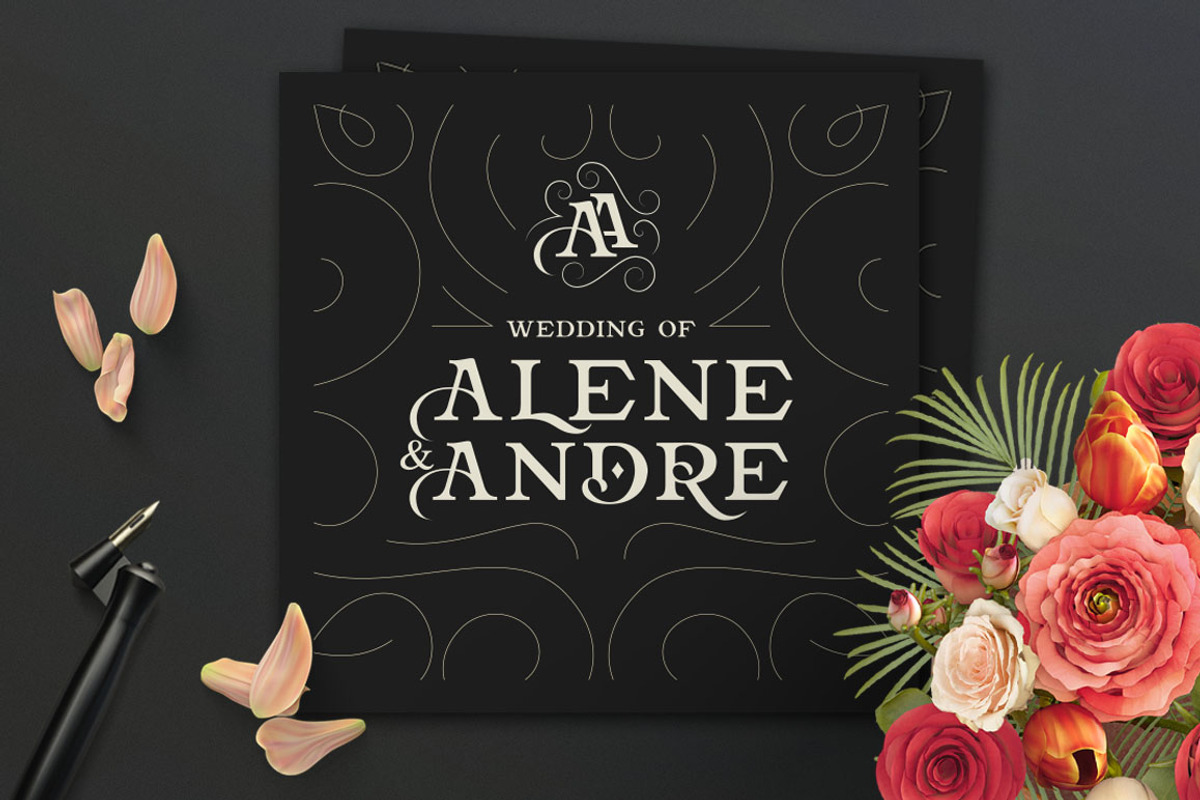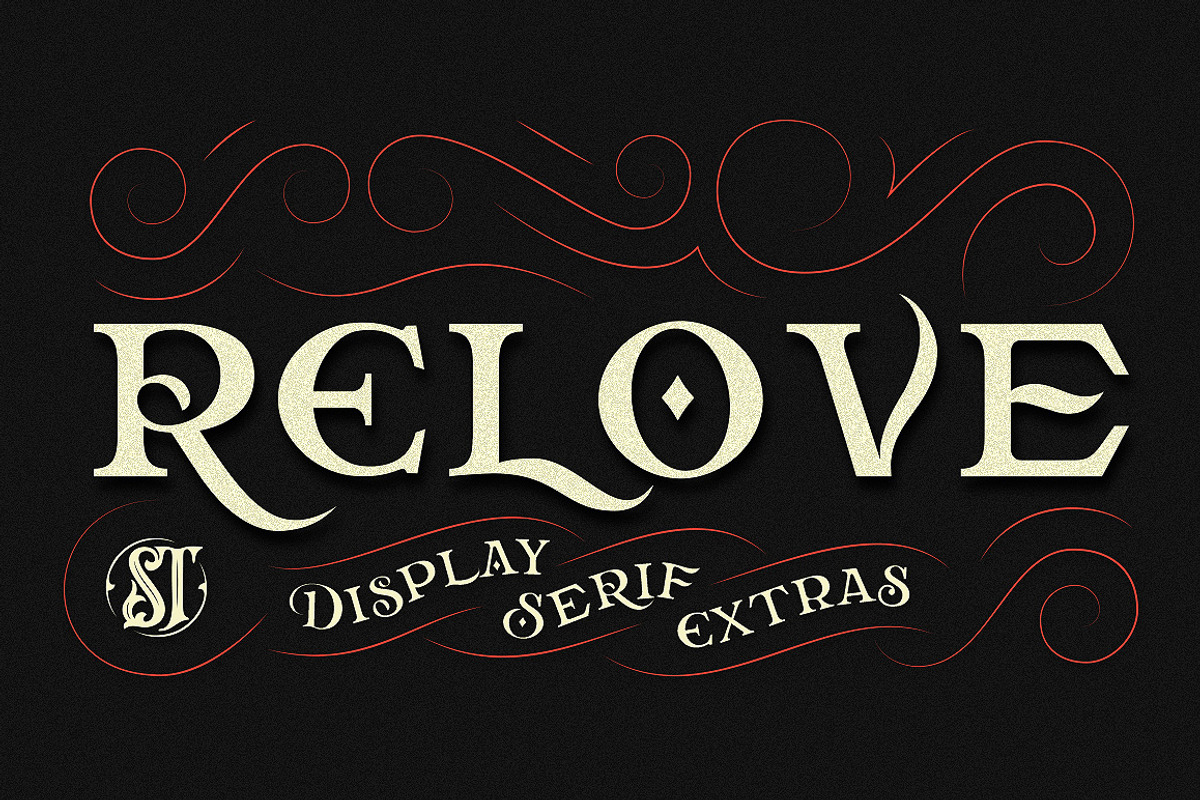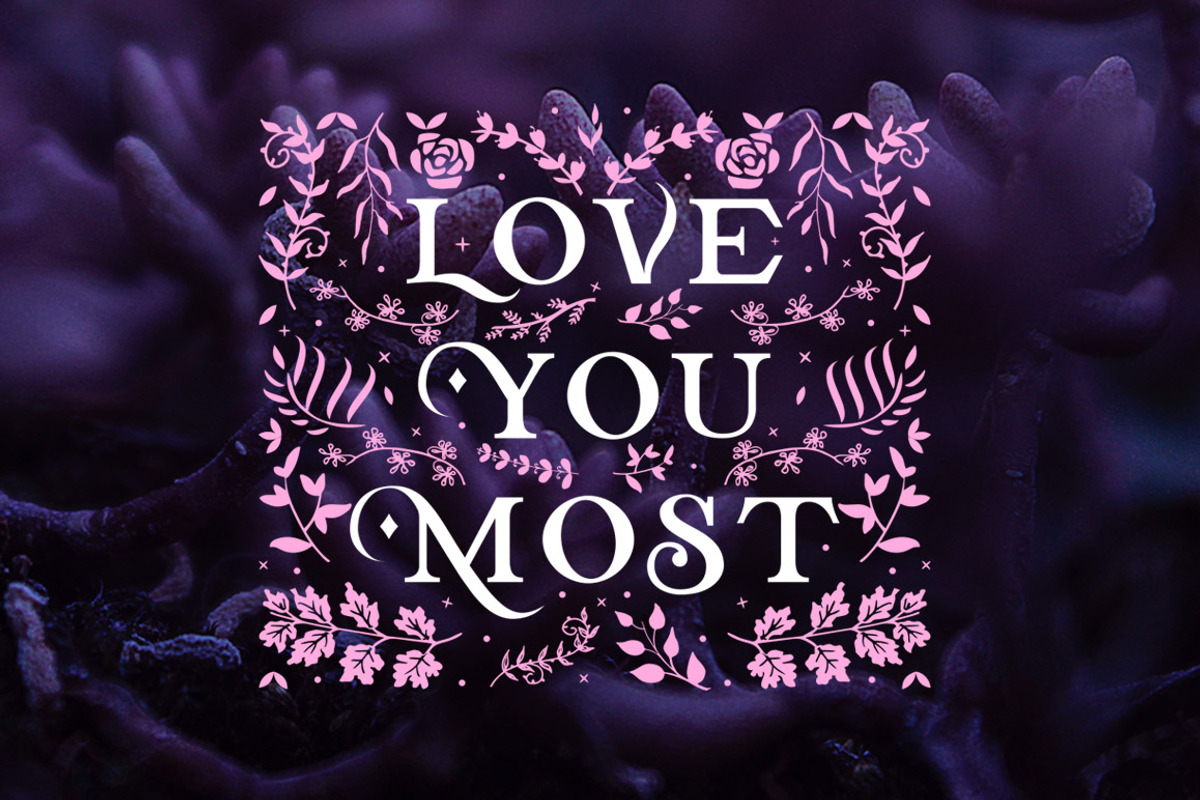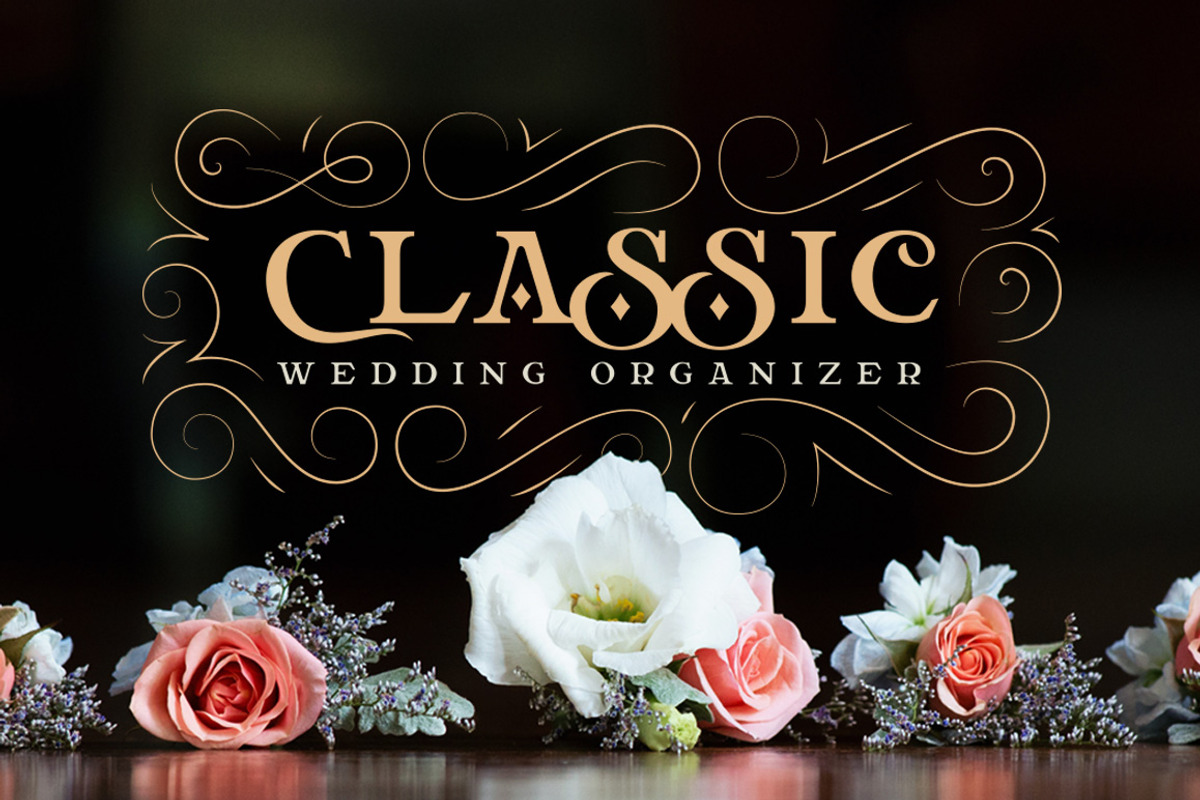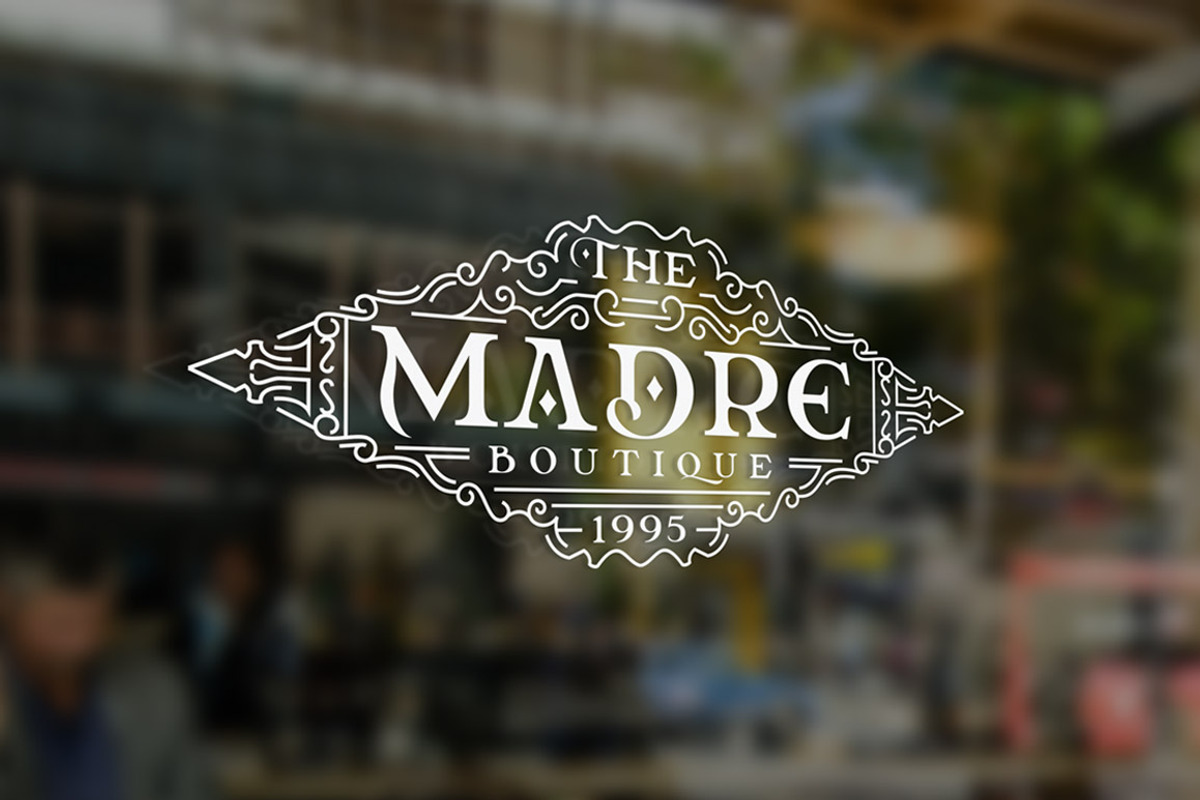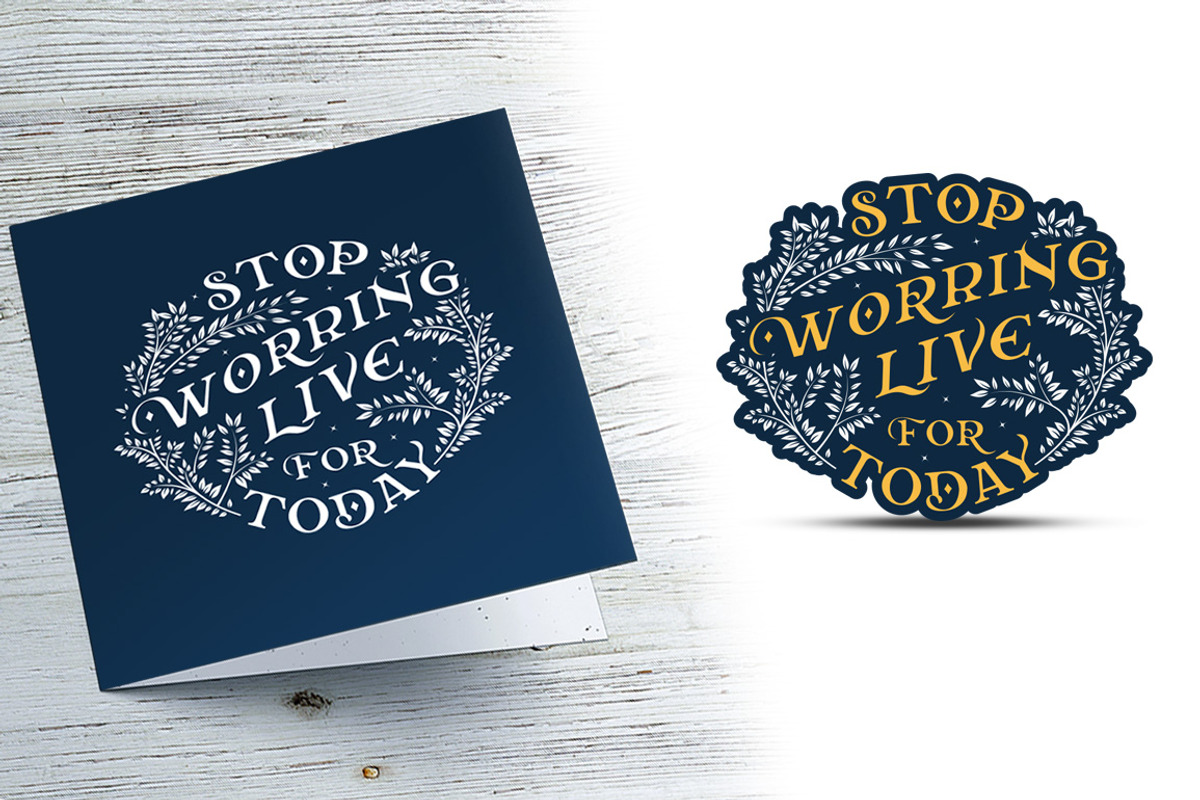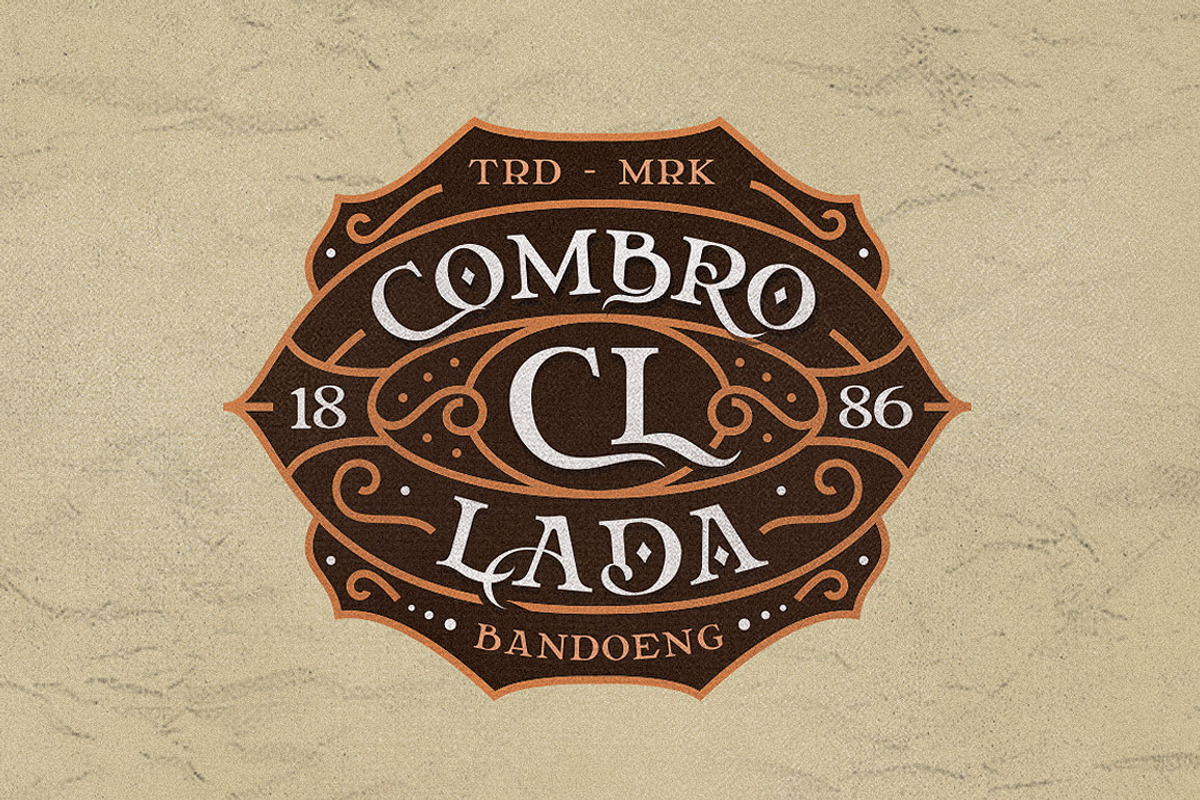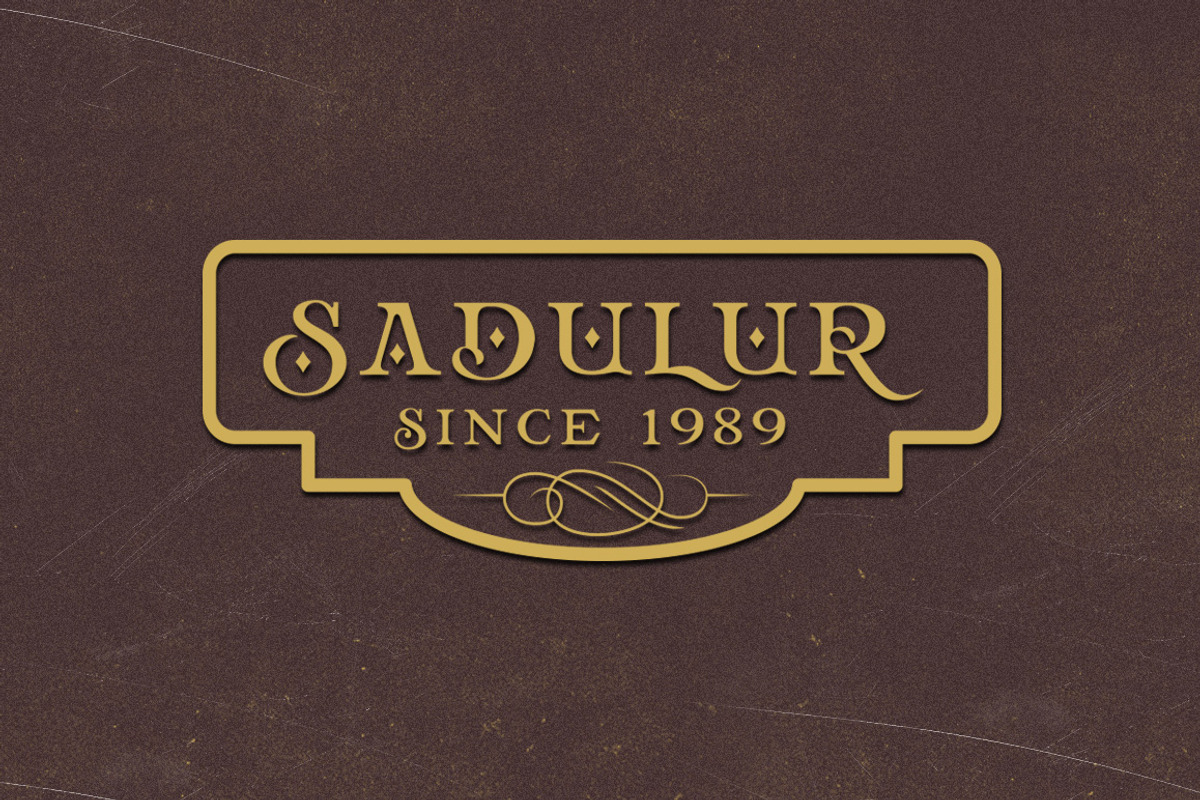
Relove Typeface + Extras
Relove typeface is a all caps typeface decorative-serif font embodying vintage and elegant curves with functional structure with a extra ornaments.it was inspired by natural forms and structures and the curved lines. with strong and sleek letters, which create a brilliant foundation for the flourished alternatives to rest. The result is beautiful interlocking and totally unique designs.
Relove Typeface is great for any kind of display purpose from branding, emblem, advertising , t-shirt , etc you name it.
Relove Typeface + Extras by StoricType fits naturally into Branding, posters, packaging, typography.